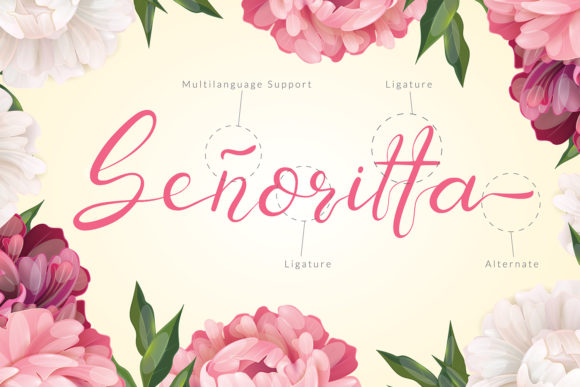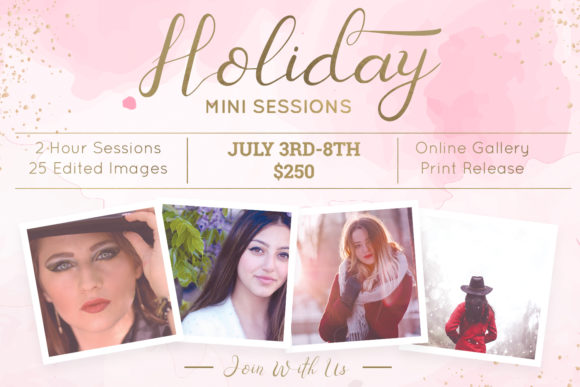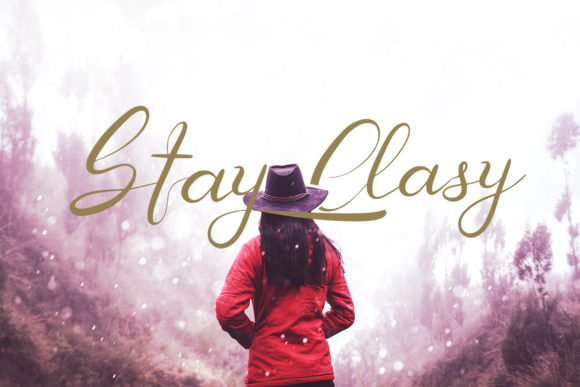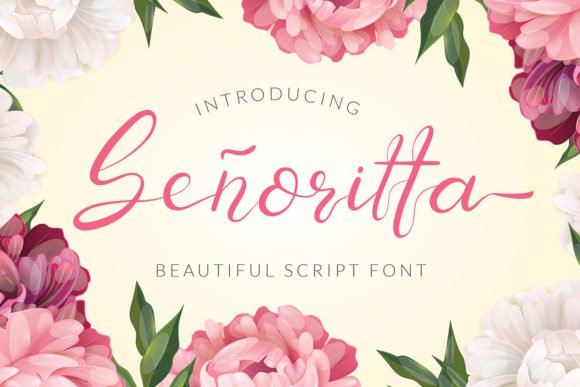
Introduction to Senoritta Font
Senoritta is a beautiful script font suitable for a variety of projects.
This typeface can make your design stand out from the crowd .
Senoritta Font offers exceptional quality and versatility, making it a valuable addition to your design toolkit. Whether you’re creating for personal projects or commercial use, Senoritta Font delivers professional results.